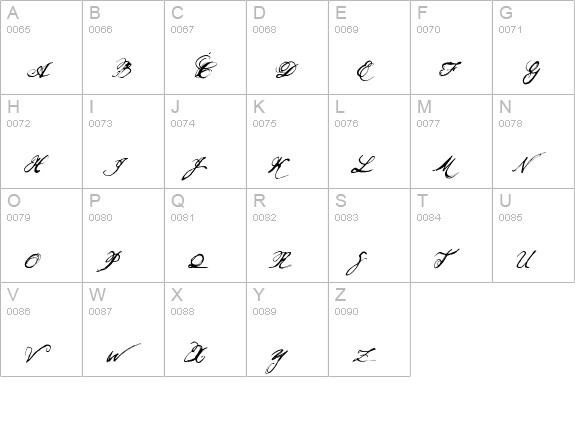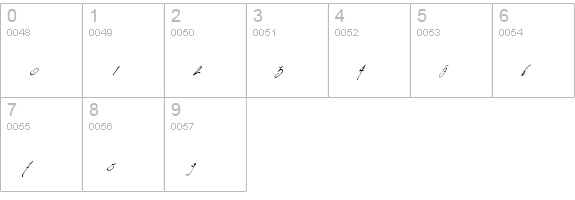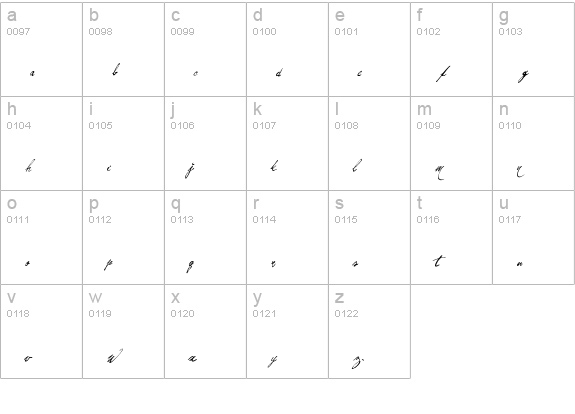
Olho de Boi 0.2 Font Details
Olho de Boi 0.2 font is a stunning display typeface that exudes elegance and sophistication. Its intricate details and unique design make it a perfect choice for adding a touch of luxury to your projects. The ornate serifs and graceful curves of Olho de Boi 0.2 font create a timeless and classic aesthetic that will elevate any design it is used in. What sets Olho de Boi 0.2 font apart is not only its beauty but also its versatility. Whether you are designing a logo, branding materials, invitations, or any other creative project, this font will make a lasting impression. Its bold presence and intricate details make it a standout choice for any design need. The best part? Olho de Boi 0.2 font is available for free download at FontsMarket.com. This means you can easily access this exquisite font and start using it in your projects right away. Don't miss out on this opportunity to enhance your designs with the beauty and sophistication of Olho de Boi 0.2 font. Download it now and let your creativity soar!